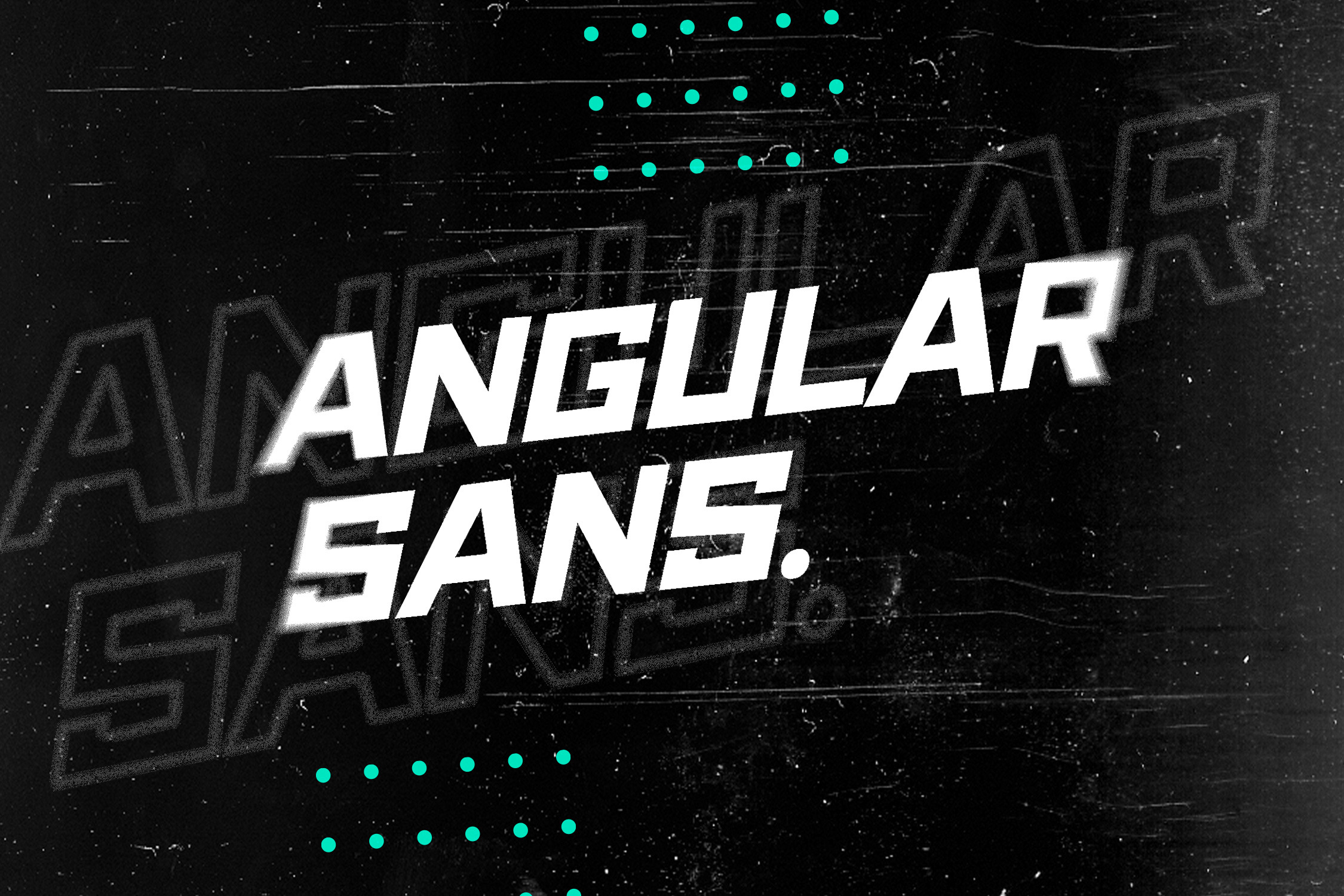
Angular Sans - Bold Display Font
Introducing Angular Sans - Bold Display Typeface
This font comprises of a regular and italic version, and is perfect for both printed and digital artwork. It suits gaming, streaming graphics such as on streaming platforms, it suits content creators and so much more!